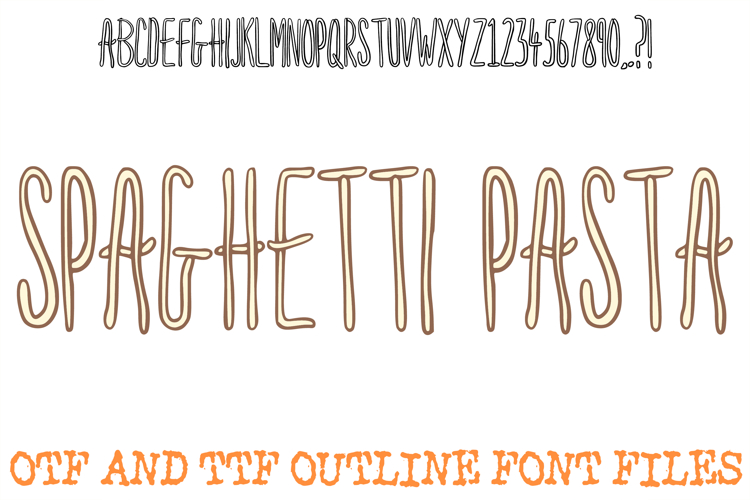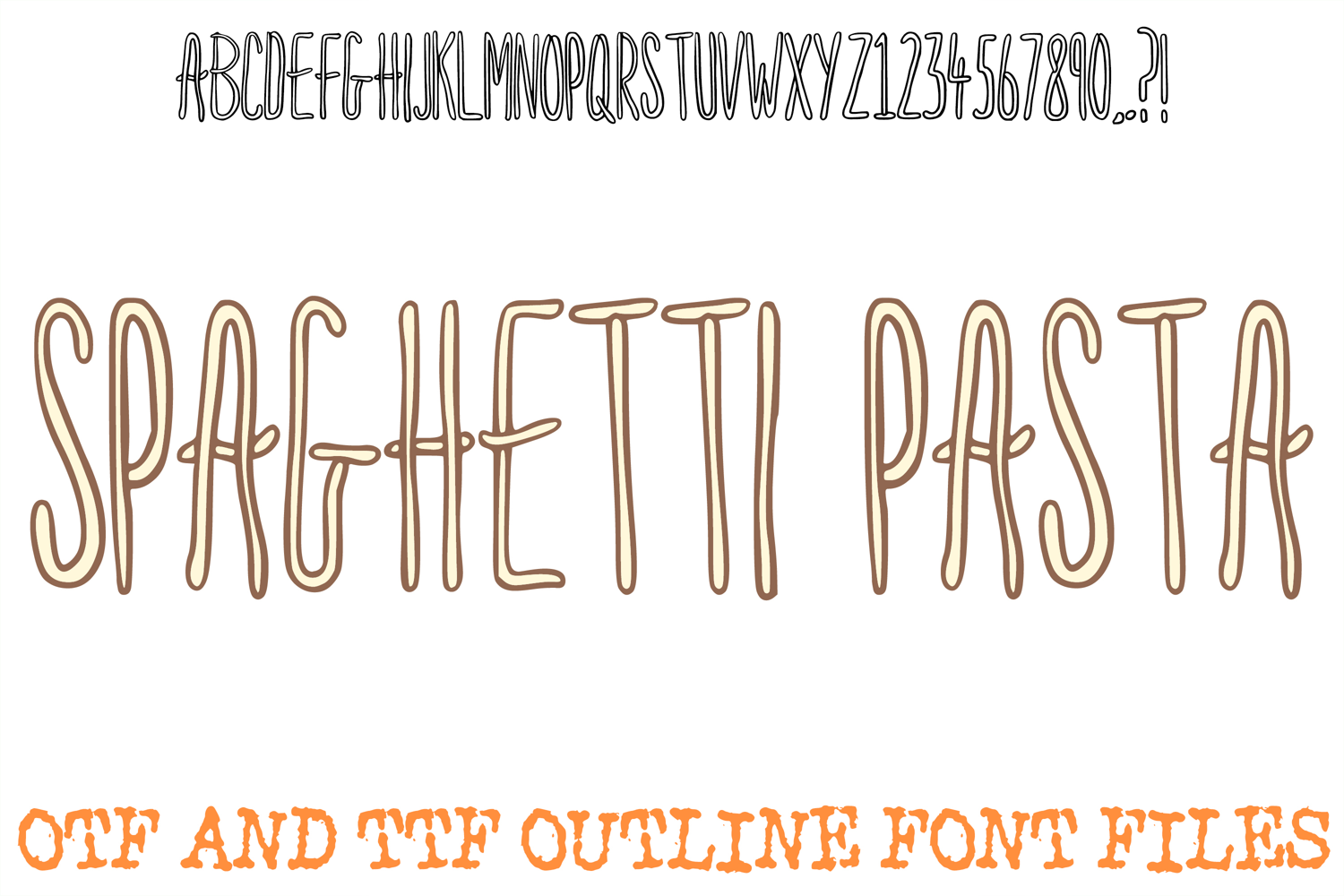
The Spaghetti Pasta Font is a tall, slender display typeface inspired by the flowing, organic shapes of al dente pasta. Featuring elongated letterforms with soft, rounded terminals and a warm, cream-colored palette, this font is a premier choice for designers working on Italian restaurant menus, artisanal food packaging, culinary blog headers, and playful kitchen-themed social media content.
The design captures a sense of handcrafted elegance and comfort, with hand-drawn outlines that give each letter a tactile, flexible personality. Whether you are building an identity for a gourmet deli or designing vibrant apparel for a food festival, this font provides a high-contrast, whimsical aesthetic that is both sophisticated and fun.
Why Your Designs Will Stand Out
Fluid Noodle-Like Curves: Each character features realistic, noodle-inspired bends and rounded junctions, adding an authentic culinary charm to your typography.
Tall Condensed Profile: The slender, vertical nature of the alphabet allows for impactful, space-saving headers that maintain a bold, hand-drawn presence.
Warm Appetizing Palette: The soft cream tones and clean outlines ensure your headers look delicious and professional against dark backgrounds or food photography.
Gourmet Handcrafted Quality: The irregular, "twirly" lines provide a tactile quality that adds a layer of human personality and artisanal flair to digital projects.